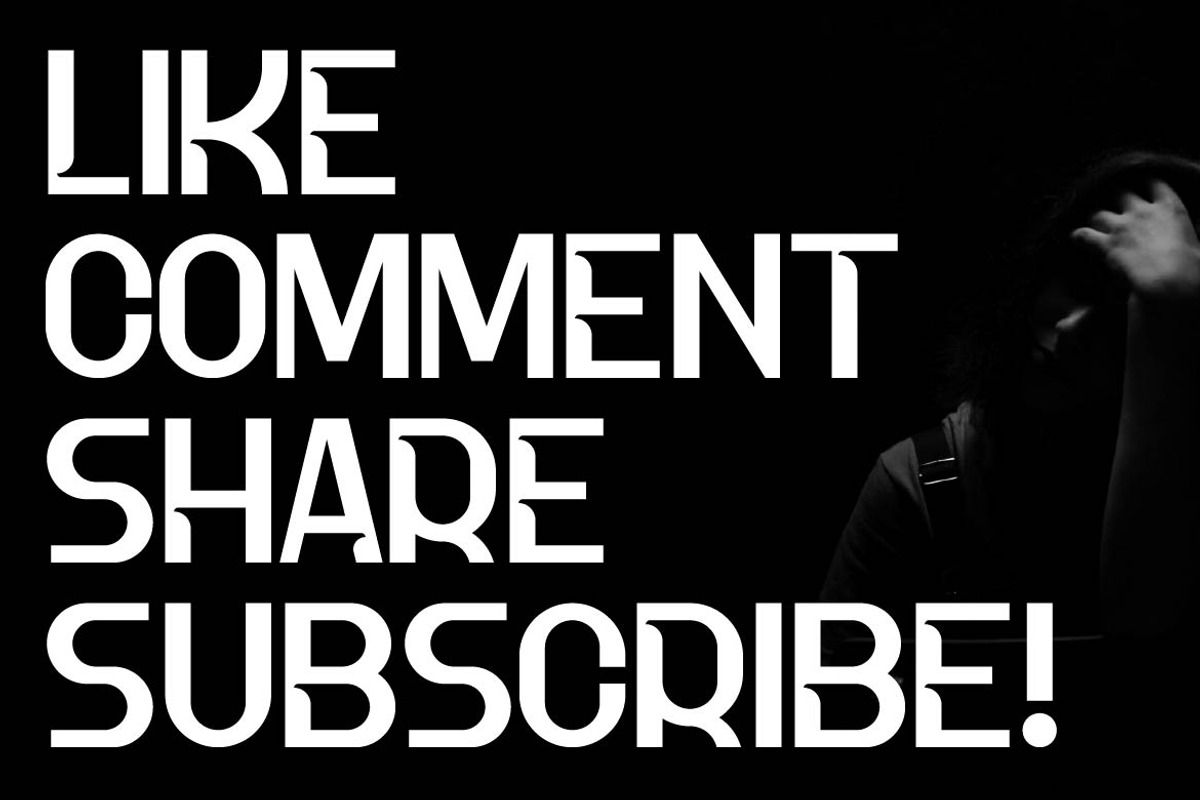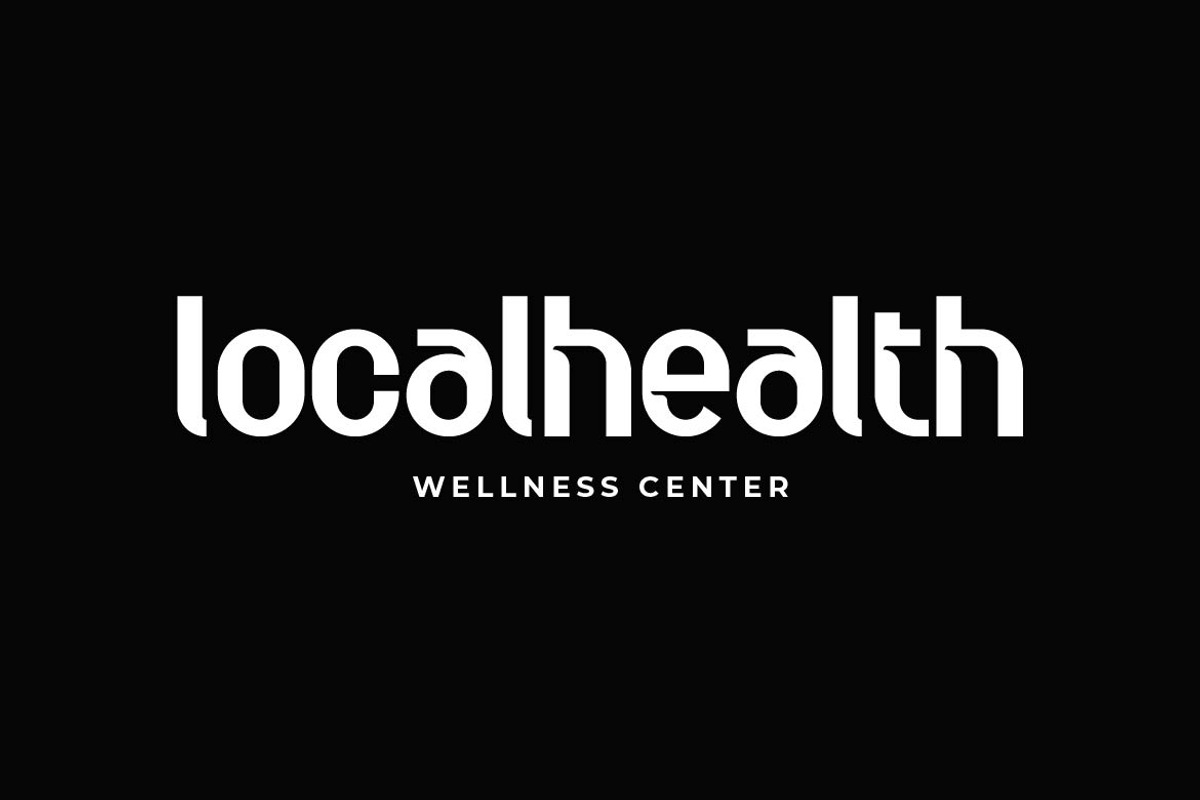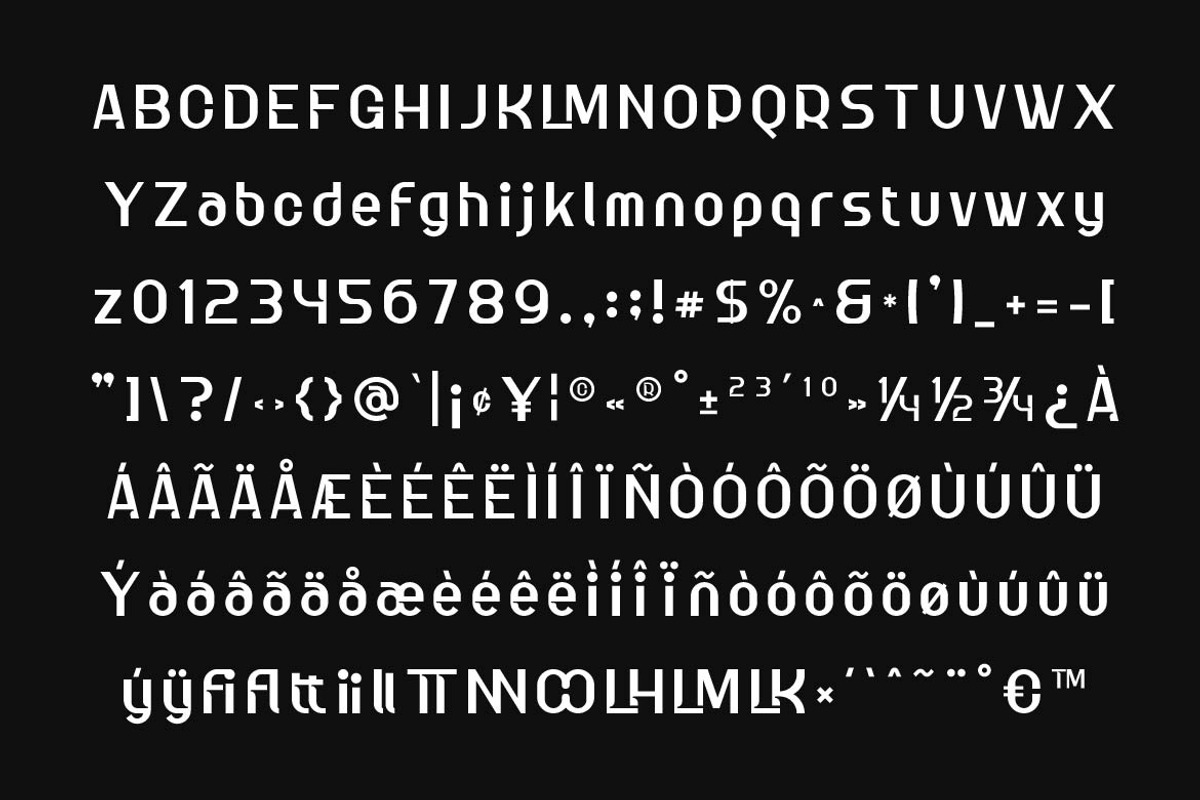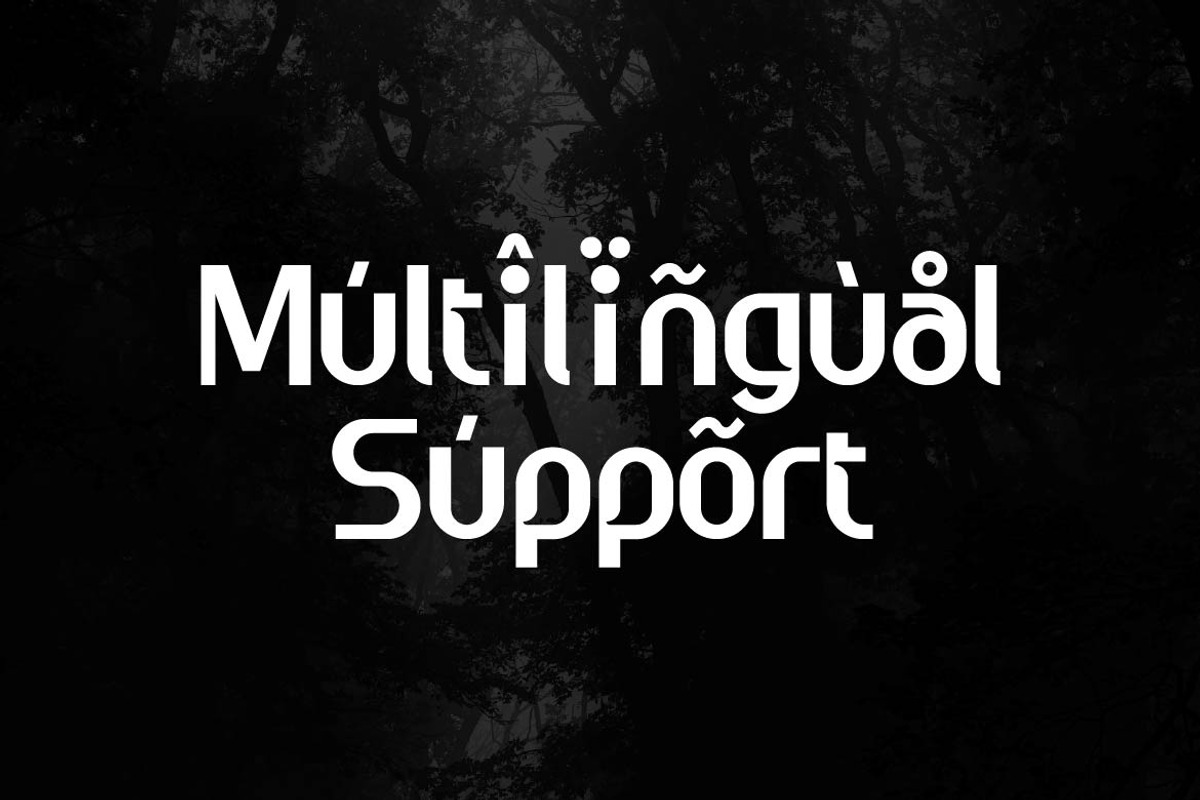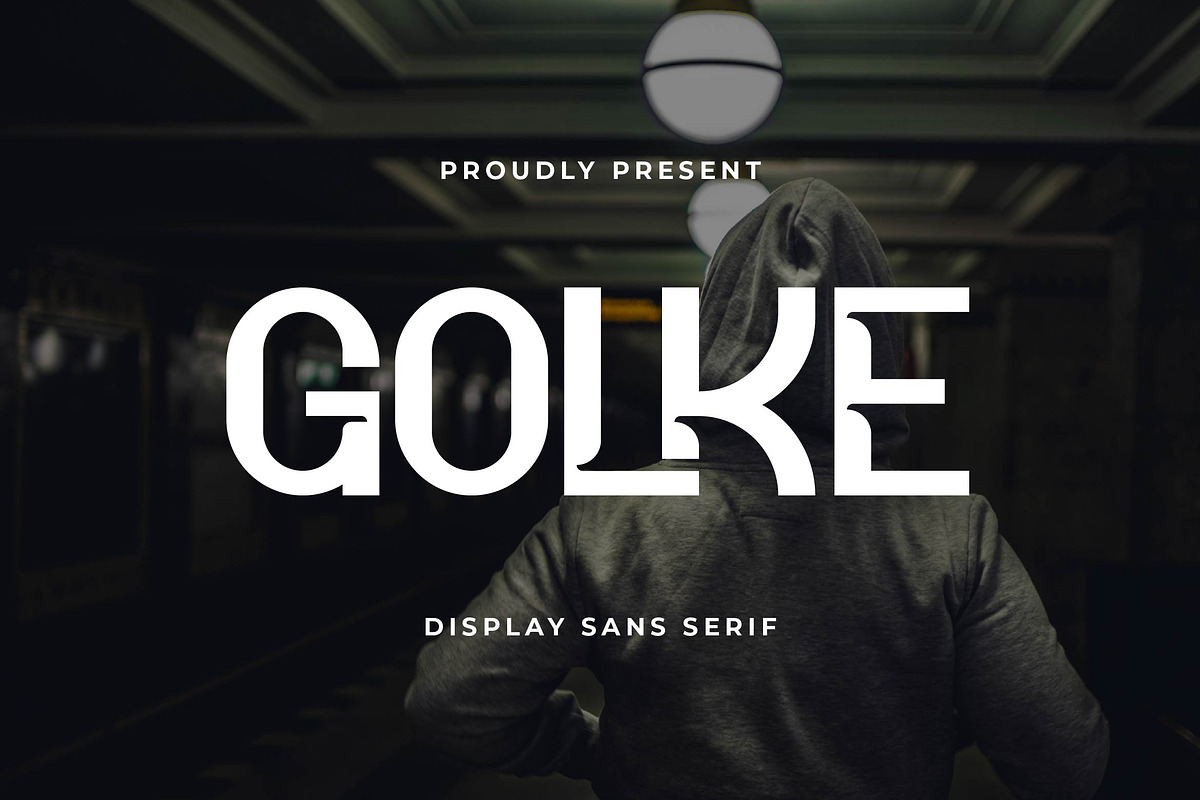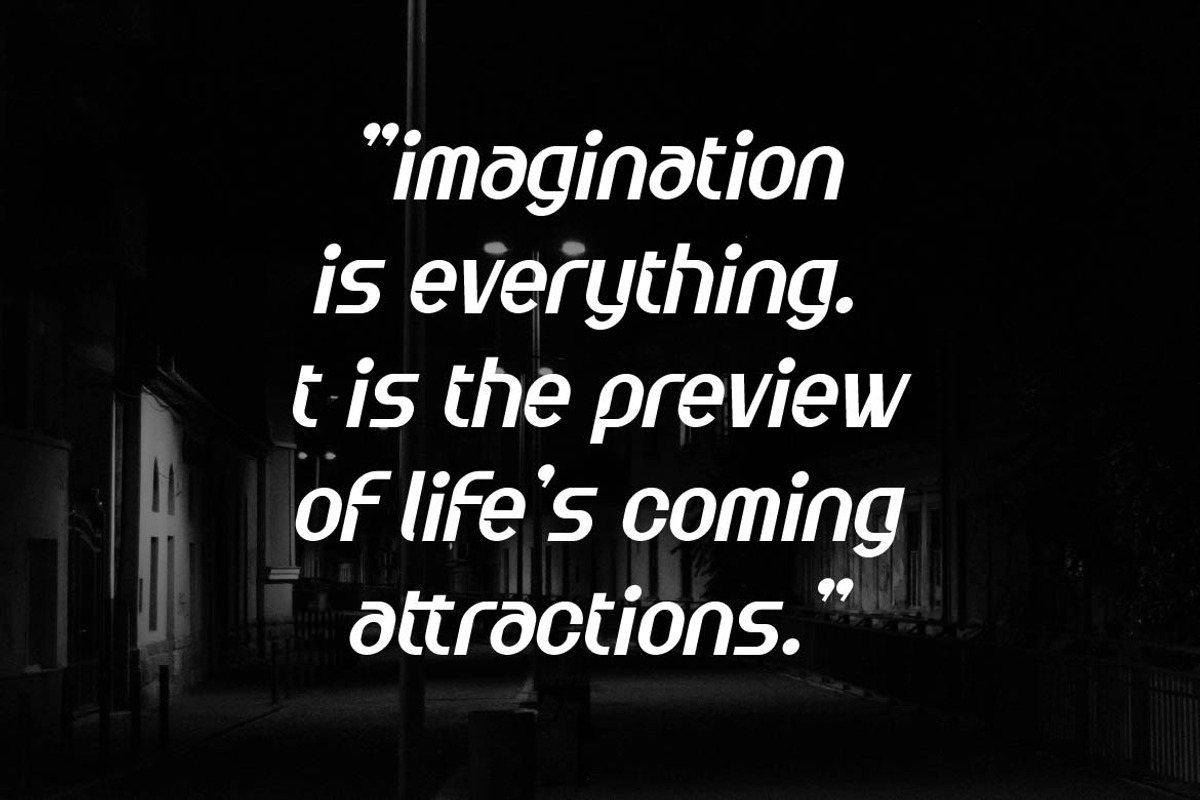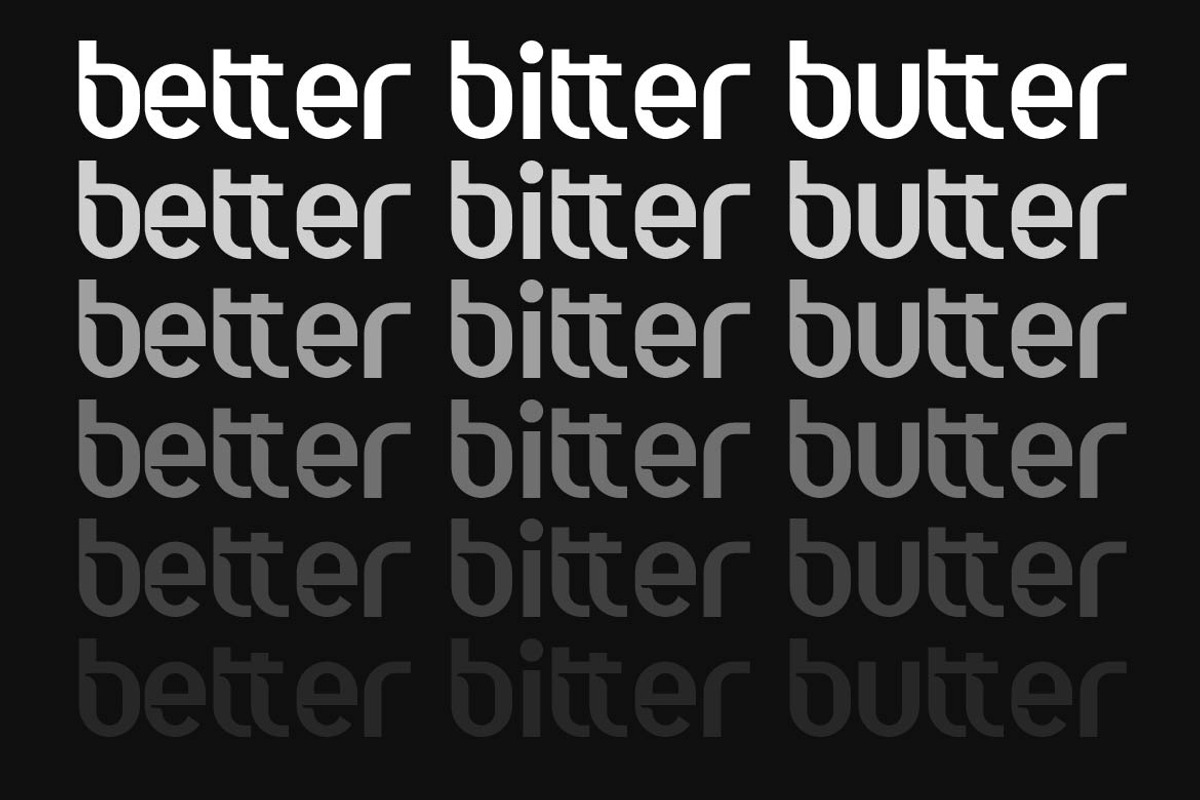
Golke Creative Sans Serif
Golke is a striking display sans serif font designed to bring strong personality and visual impact to any project. Featuring sharp angles, modern proportions, and a uniquely crafted letterform style, Golke delivers a creative aesthetic that stands out in branding, headlines, posters, editorial layouts, and digital content.